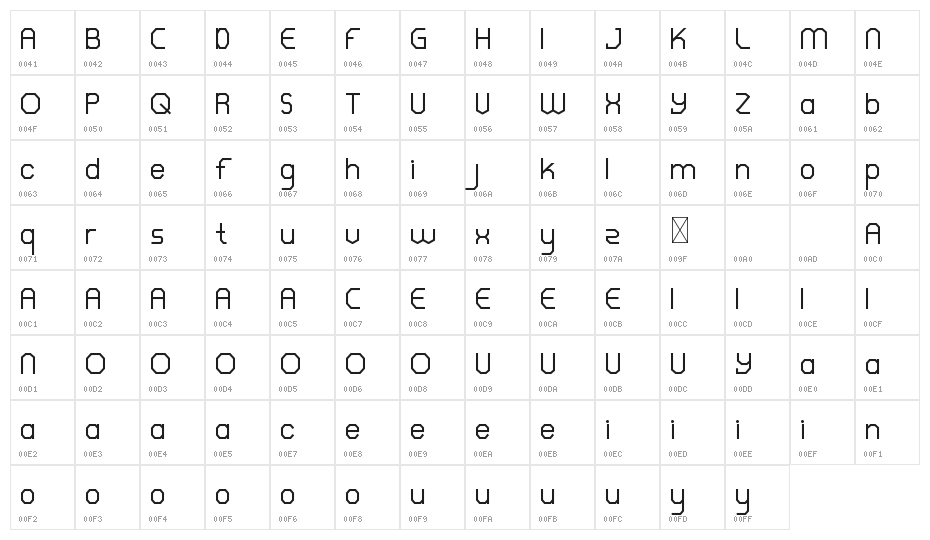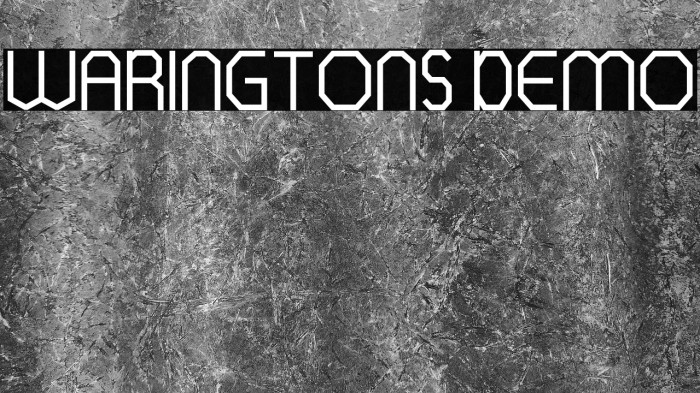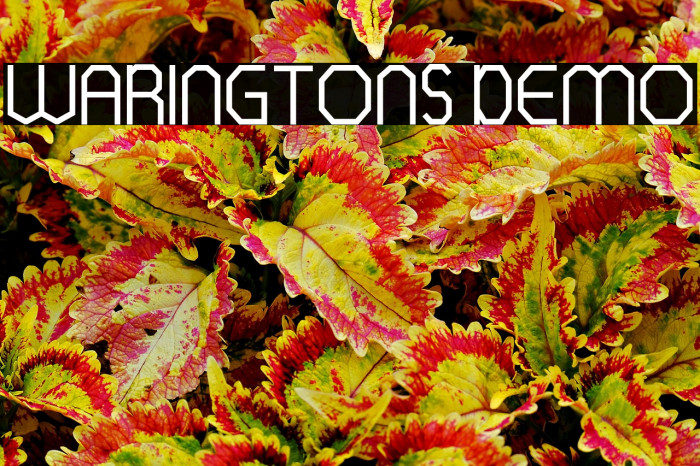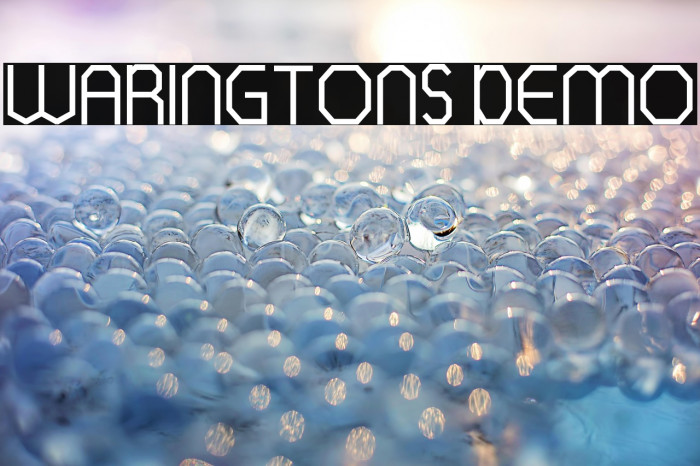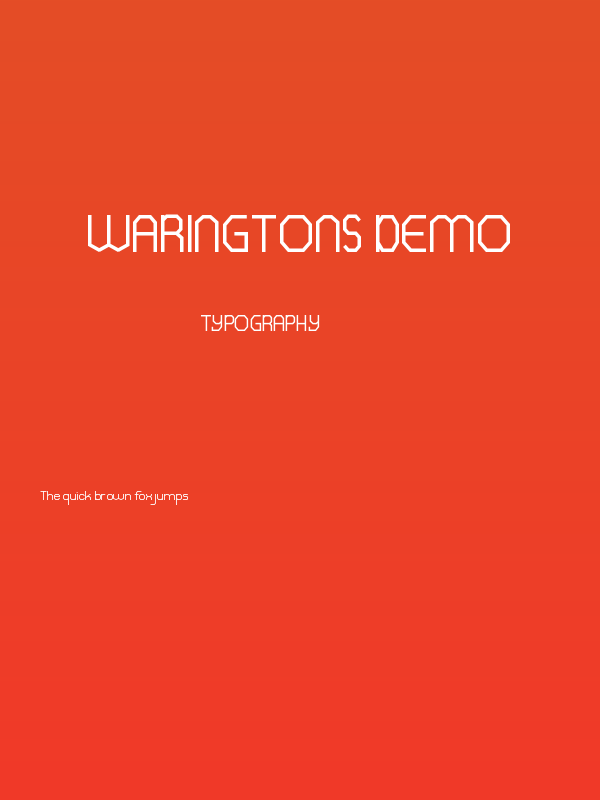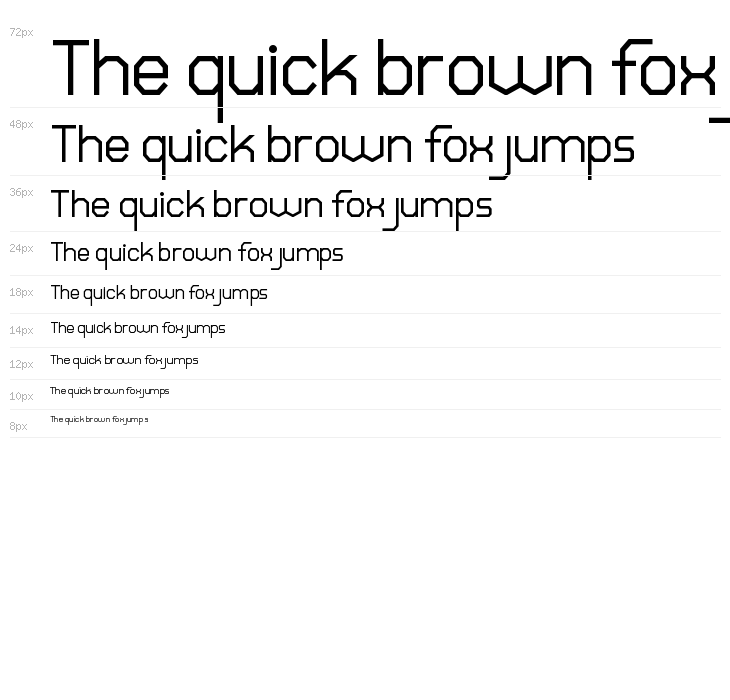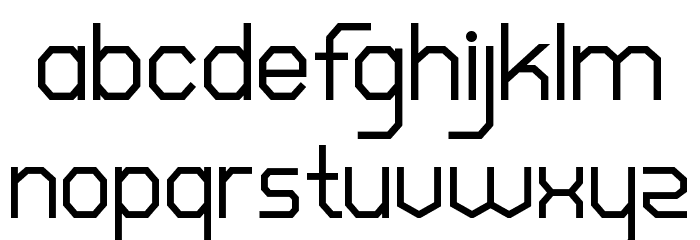
WARINGTONS DEMO Font
WARINGTONS DEMO Description
This font features a geometric and angular design, characterized by its sharp edges and straight lines. The uppercase and lowercase letters maintain a consistent height, giving it a uniform appearance. The characters are constructed with a modern, futuristic aesthetic, making use of minimal curves and focusing on a more technical, structured form. The font's design is reminiscent of digital or mechanical styles, suitable for projects that require a contemporary and edgy look. The spacing between characters is tight, which enhances its compact and efficient appearance. This font is ideal for creating a strong visual impact, especially in digital or tech-related contexts.